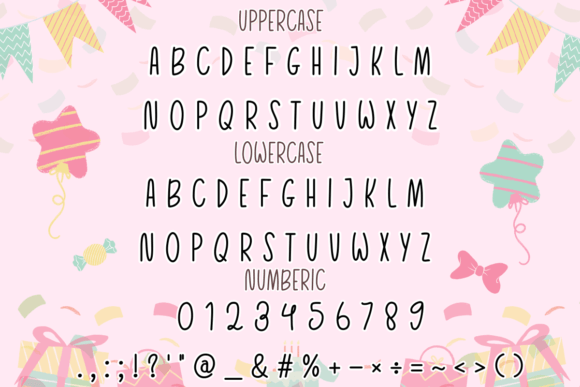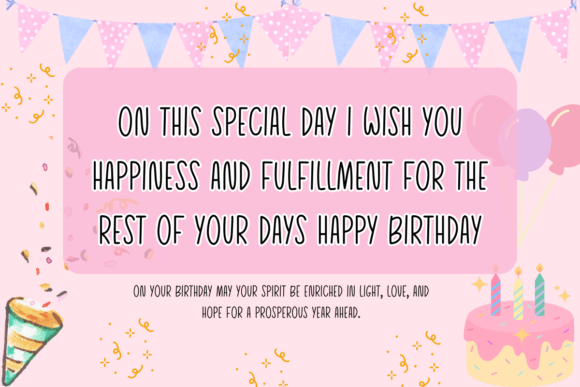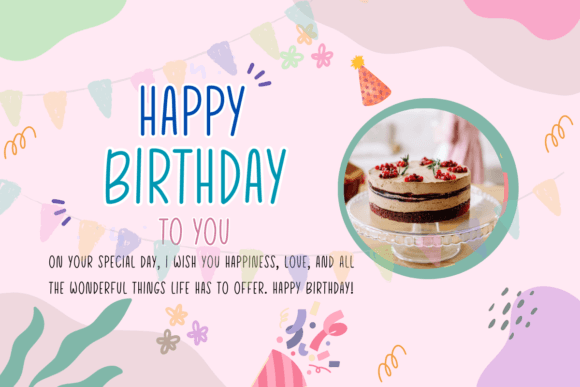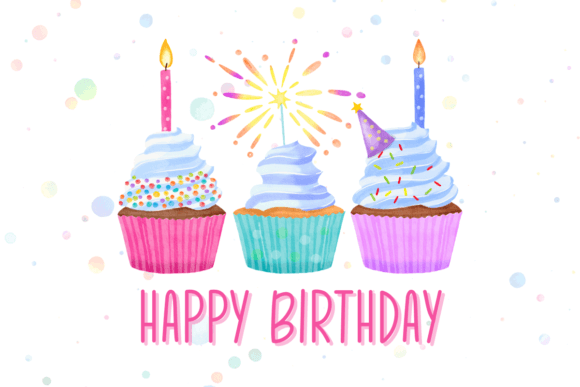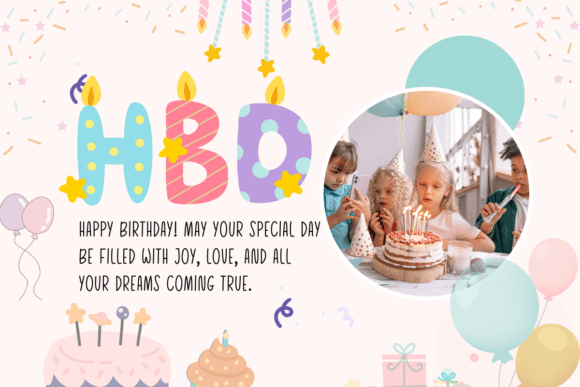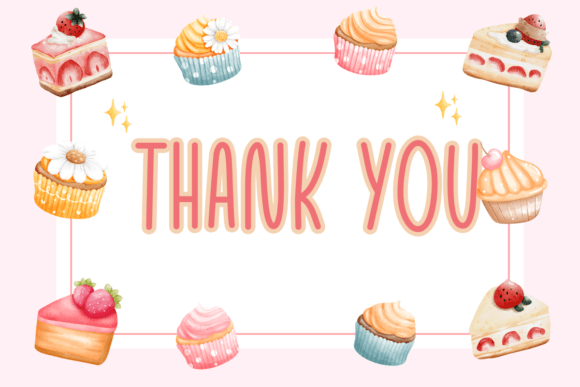
Introducing Birthday Font: The Sweet and Friendly Handwritten Font for All Your Creative Needs
Are you looking for a font that can add a personal touch to your notes, diaries, greeting cards, and other designs? Look no further than Birthday Font, a sweet and friendly handwritten font that’s perfect for a wide range of creative projects. In this article, we’ll explore the features and benefits of Birthday Font, and show you can use it to take your designs to the next level.
What is Birthday Font?
Birthday Font is a beautiful, handwritten font that’s designed to bring a touch of warmth and personality to your designs. With its flowing lines and whimsical feel, this font is perfect for creating a sense of connection and intimacy with your audience. Whether you’re making greeting cards, writing in a diary, or creating social media posts, Birthday Font is the perfect choice.
Features of Birthday Font
So, what makes Birthday Font so special? Here are just a few of its key features:
- Handwritten feel: Birthday Font has a beautifully handwritten feel that’s perfect for creating personal and intimate designs.
- Sweet and friendly: This font has a warm and welcoming feel that’s sure to put a smile on your face.
- Versatile: Birthday Font can be used for a wide range of designs, from notes and diaries to greeting cards, banners, and more.
- Easy to read: Despite its handwritten feel, Birthday Font is easy to read and understand, making it perfect for designs where clarity is key.
Uses for Birthday Font
So, what can you use Birthday Font for? The possibilities are endless! Here are just a few ideas to get you started:
- Notes and diaries: Add a personal touch to your notes and diaries with Birthday Font.
- Greeting cards: Create beautiful, one-of-a-kind greeting cards for birthdays, holidays, and other special occasions.
- Banners: Use Birthday Font to create eye-catching banners for parties, events, and other celebrations.
- Content mugs: Add a personal touch to your mugs with Birthday Font.
- Cards and invitations: Create custom cards and invitations for weddings, baby showers, and other special events.
- Shirts and apparel: Use Birthday Font to create custom shirts, hoodies, and other apparel.
- Stationery: Add a touch of personality to your stationery with Birthday Font.
- Social media posts: Use Birthday Font to create eye-catching social media posts that stand out from the crowd.
Tips for Using Birthday Font
Here are a few tips for getting the most out of Birthday Font:
- Experiment with colors: Try pairing Birthday Font with different colors and textures to create unique and eye-catching designs.
- Play with sizes: Experiment with different font sizes to create visual interest and hierarchy in your designs.
- Add embellishments: Consider adding embellishments, such as stickers or illustrations, to give your designs an extra boost.
- Keep it simple: Don’t be afraid to keep things simple and elegant with Birthday Font. Sometimes, less is more!
In conclusion, Birthday Font is a sweet and friendly handwritten font that’s perfect for a wide range of creative projects. With its flowing lines, whimsical feel, and easy-to-read design, this font is sure to bring a touch of warmth and personality to your designs. Whether you’re a designer, crafter, or simply someone who loves to create, Birthday Font is a great choice for anyone looking to add a personal touch to their work. So why not give it a try today and see what amazing designs you can create?